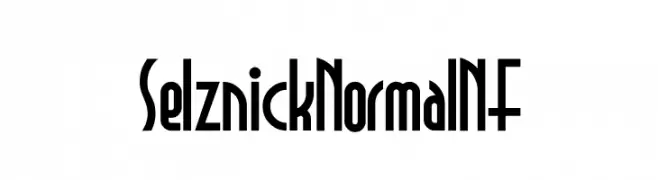
A modern, decorative font with elongated, narrow letterforms and a unique geometric style.
An Art Deco-inspired font with geometric and elongated letterforms.